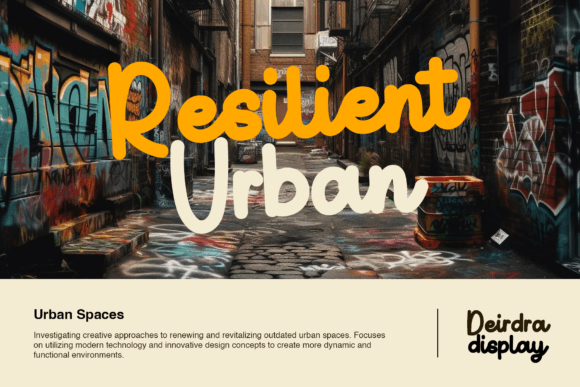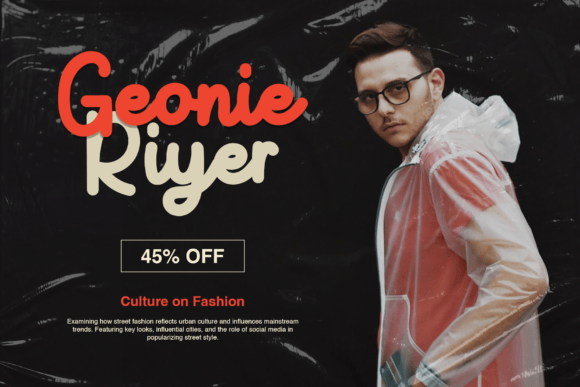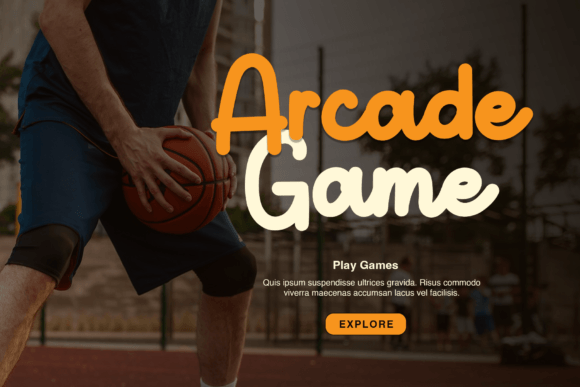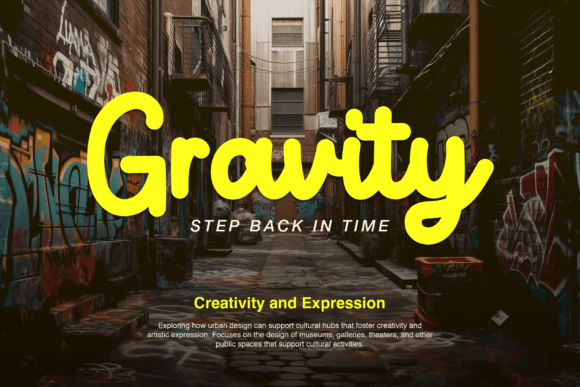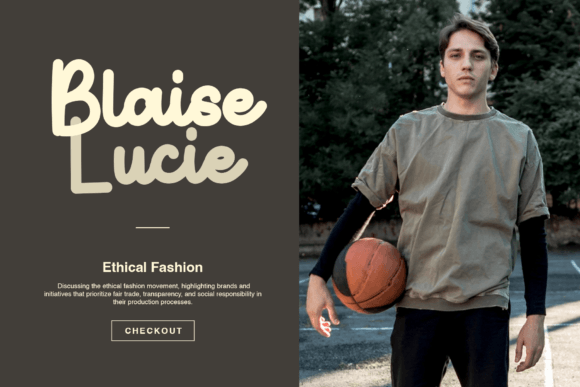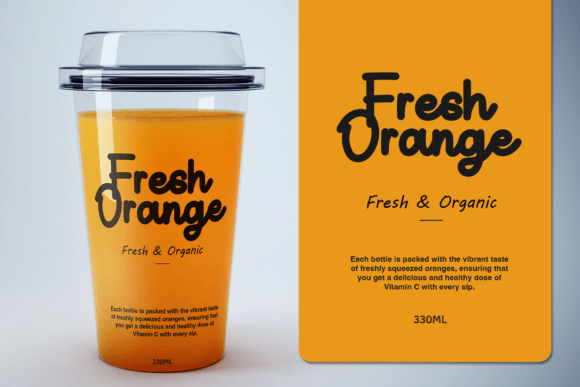
Introducing Deirdra Font: The Ultimate Monoline Elegant Display Font
In the world of typography, fonts play a crucial role in conveying messages, expressing creativity, and building brand identities. For designers, crafters, and marketers, finding the perfect font can be a daunting task. However, if you’re looking for a versatile and elegant solution, look no further than Deirdra Font. This stunning monoline display font is designed to elevate your visual projects, making it perfect for a wide range of applications.
What is Deirdra Font?
Deirdra Font is a beautifully crafted monoline elegant display font, characterized by its clean lines, simplicity, and sophistication. Its monoline design features connected letters with a consistent line width, creating a harmonious and fluid look. This font is ideal for projects that require a touch of elegance, modernity, and style.
Perfect for Various Applications
Deirdra Font’s versatility makes it suitable for a wide range of applications, including:
- Social Media: Elevate your social media presence with Deirdra Font. Use it to create engaging posts, stories, and captions that stand out from the crowd.
- Advertisements: Make your ads more effective with Deirdra Font’s elegant and modern look. Grab attention and convey your message with style.
- Instagram: Add a touch of sophistication to your Instagram feed with Deirdra Font. Perfect for captions, quotes, and promotional content.
- Logos and Branding: Create a lasting impression with Deirdra Font. Its unique design makes it ideal for logos, business cards, and other branding materials.
- GoodNotes: Enhance your digital notes and journals with Deirdra Font. Add a touch of elegance to your notes and make them more visually appealing.
- Canva: Deirdra Font is compatible with Canva, making it easy to incorporate into your designs. Create stunning graphics, posters, and more.
- Signs and Crafting: Use Deirdra Font to create eye-catching signs, craft projects, and DIY materials. Perfect for mugs, shirts, labels, stickers, and more.
- Business Cards: Make a great impression with Deirdra Font on your business cards. Stand out from the competition with its unique design.
- Greeting Cards: Add a touch of elegance to your greeting cards, invitations, and other paper crafts.
- Posters: Create stunning posters with Deirdra Font. Perfect for advertising, promoting events, or showcasing your work.
- Planner Prints: Enhance your planners and journals with Deirdra Font. Add a touch of sophistication to your printables.
- Websites: Use Deirdra Font to elevate your website’s typography. Perfect for headings, titles, and other display text.
Why Choose Deirdra Font?
Deirdra Font offers several benefits that make it an excellent choice for designers and crafters:
- Elegant and Modern: Deirdra Font’s monoline design gives it a sleek and modern look, perfect for projects that require a touch of sophistication.
- Versatile: Its versatility makes it suitable for a wide range of applications, from social media to logos and branding.
- Easy to Read: Deirdra Font is designed to be easy to read, making it perfect for body text, headings, and titles.
- Unique: Deirdra Font’s unique design sets it apart from other fonts, making it ideal for projects that require a distinctive look.
In conclusion, Deirdra Font is an exceptional monoline elegant display font that offers a wide range of possibilities for designers and crafters. Its versatility, elegance, and modernity make it perfect for various applications, from social media to logos and branding. If you’re looking for a font that can elevate your visual projects, look no further than Deirdra Font.
Whether you’re a seasoned designer or a crafter, Deirdra Font is an excellent addition to your font library. Its unique design and ease of use make it an excellent choice for anyone looking to add a touch of sophistication to their projects.